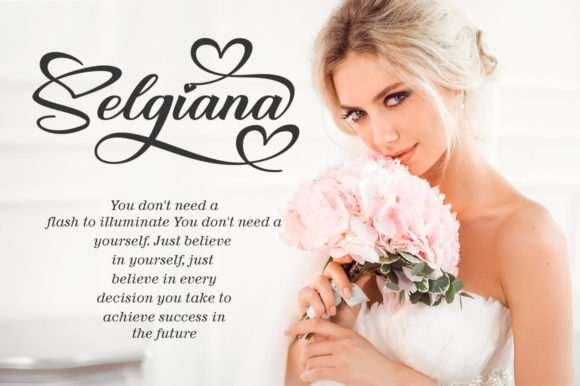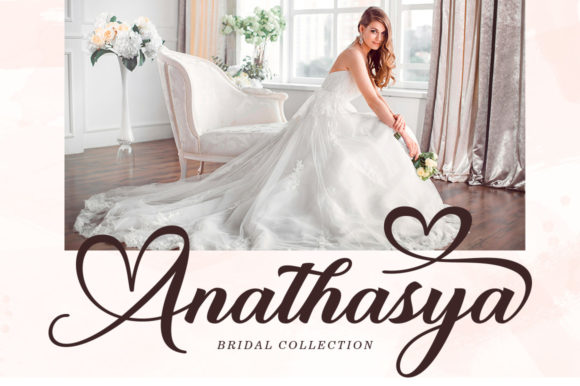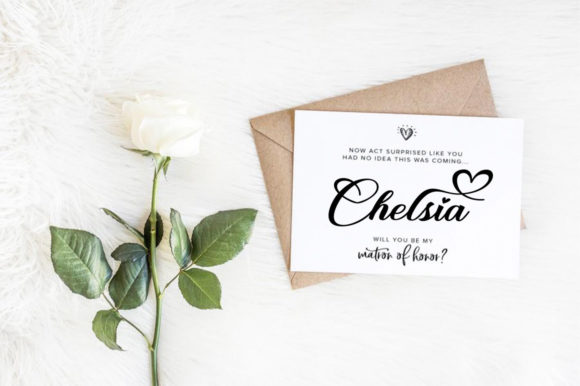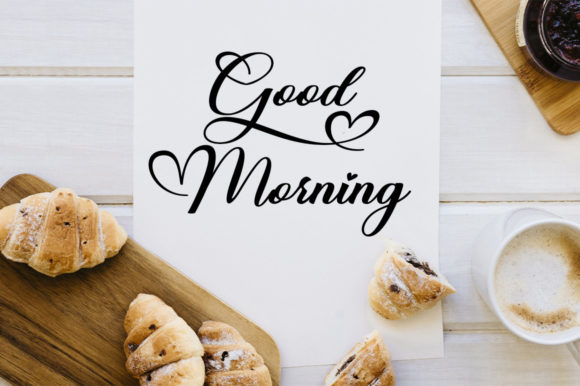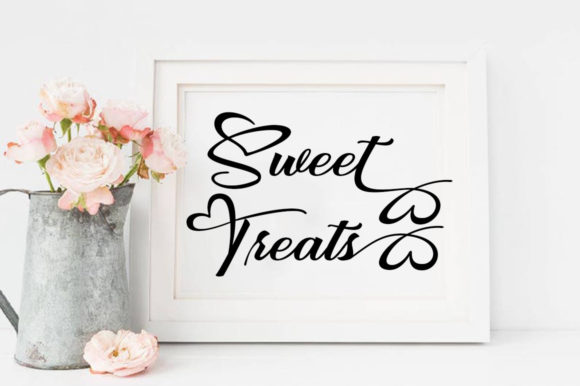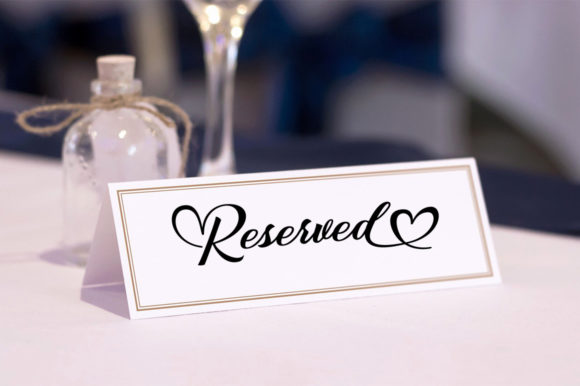
Introduction to Gista Danes Font
Gista Danes feel equally charming and elegant.
It looks lovely on wedding invitations, thank you cards, quotes, greeting cards, logos, business cards, and every other design which needs a handwritten touch This font is PUA encoded, which means you can easily access all of the glyphs and swashes.
Key Features of Gista Danes Font